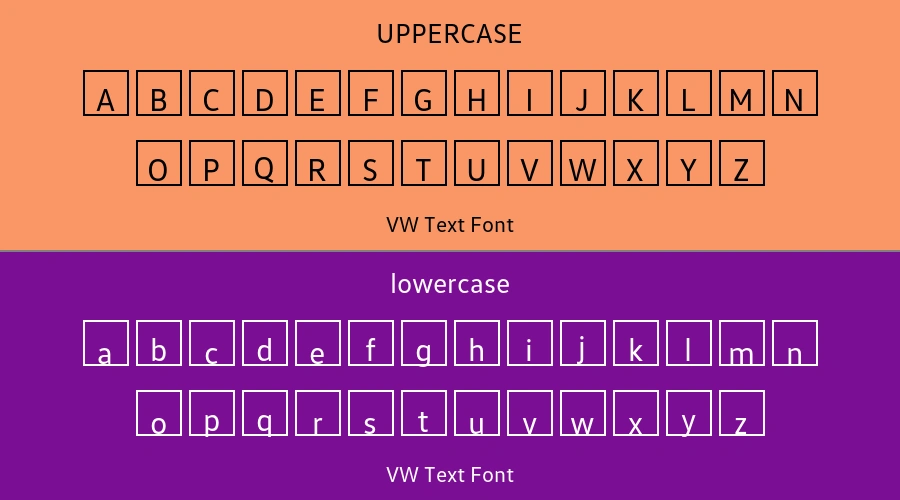
About VW Text Font
VW Text Font embodies typographic excellence through its masterful combination of width contrast and functionality. Created for event branding, this typeface delivers exceptional sophistication and cultural authenticity across all applications. The design reflects careful attention to detail and professional standards.
Advanced capabilities include distinctive geometric precision and versatile monogram components, giving designers creative control. When used in historical documents, VW Text Font exhibits remarkable brand recognition. The harmonious balance between bowl shape and subtle details sets this typeface apart.